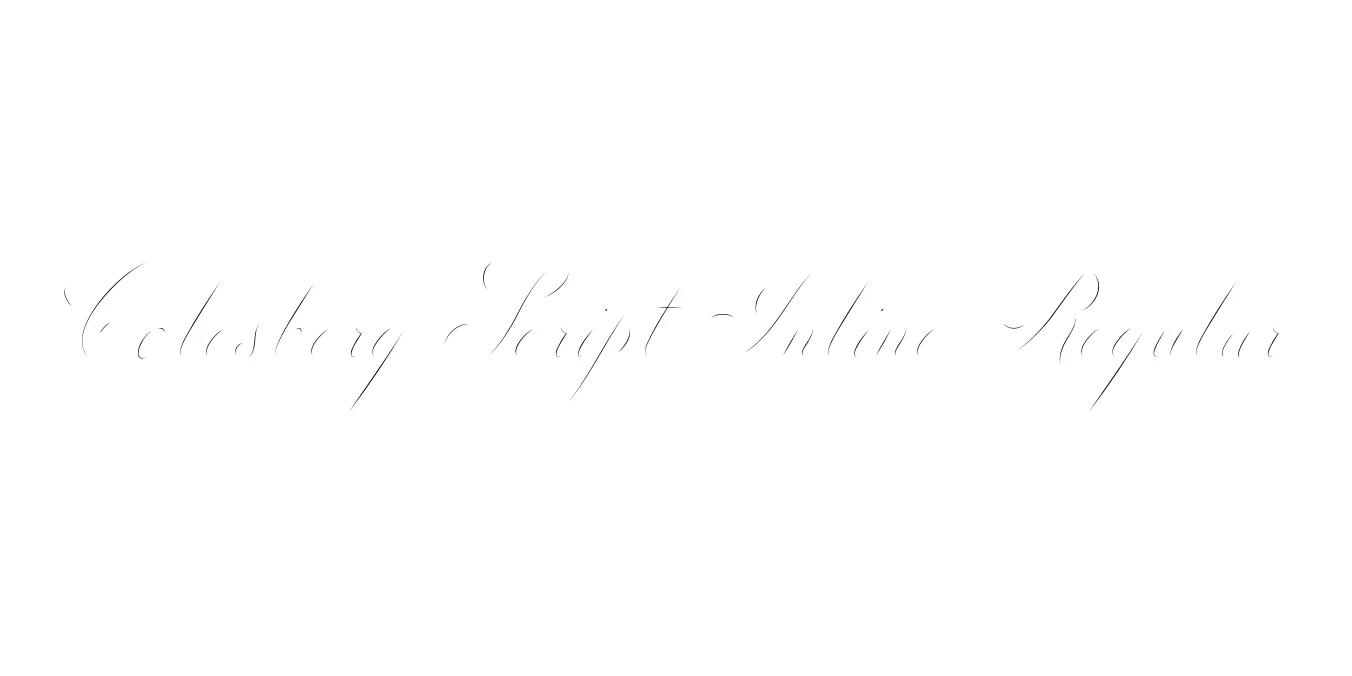
Colesberg Script Inline Regular
Designed by Reza Rasenda & Riska Candra Dewi (R.P. Design)
Colesberg Script Inline Regular is a sophisticated display typeface that seamlessly blends traditional copperplate calligraphy with a modern, decorative twist. Characterized by its flowing strokes and a distinctive internal inline detail, this font offers a classic, engraved look that exudes luxury and timeless elegance. The design maintains a high degree of legibility while incorporating rhythmic flourishes that are typical of artisanal handwriting.
The development of this script family was driven by the need for a multipurpose decorative font that could bridge the gap between vintage signage and contemporary digital branding. Its ornamental inline style makes it particularly effective for high-contrast environments where the internal detail can catch the eye. It is widely recognized for its graceful curves and professional finish, making it a staple for designers looking for a premium calligraphic aesthetic.
Colesberg Script Inline Regular Best Uses
Creating high-end, elegant invitations and RSVP cards.
Developing sophisticated brand identities for luxury products.
Effective for boutique storefronts and vintage-style placards.
Adding a premium, hand-crafted feel to cosmetic or artisanal food boxes.